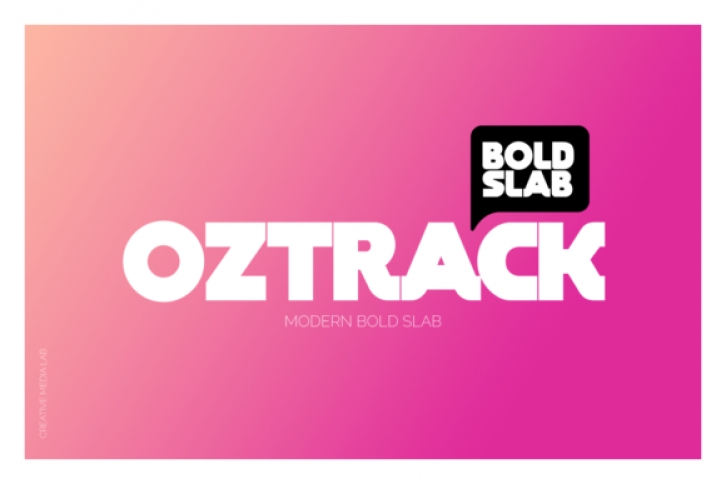
Oztrack is a bold slab font that feels both strong and elegant. It will work well in modern design projects such as logos, headlines, sports- or gaming-related projects and much more!